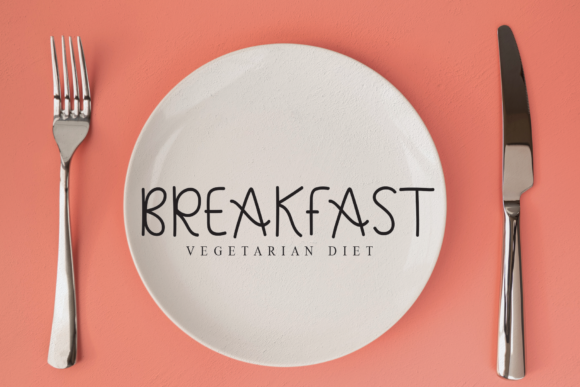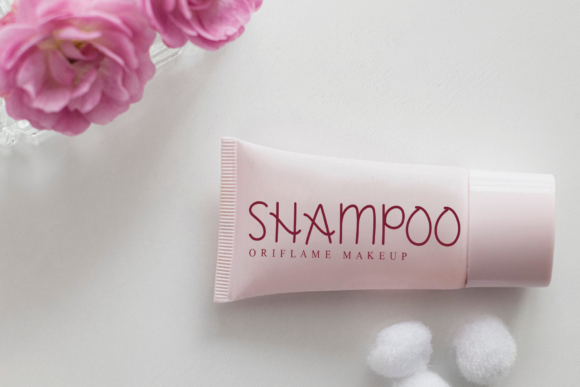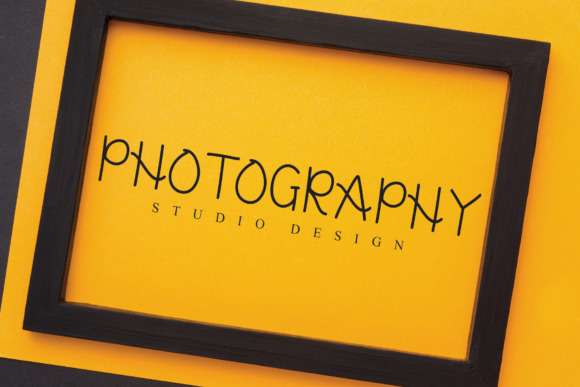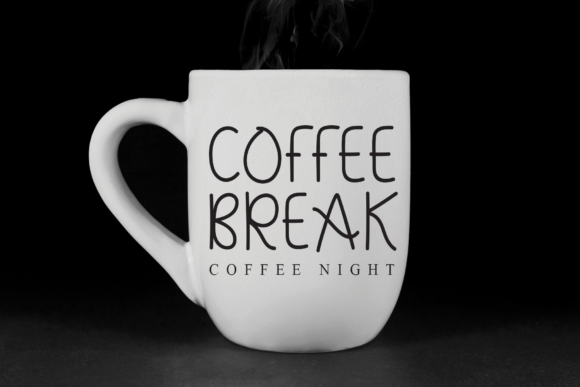
The Magic of Handwritten Fonts: Unleashing Your Creativity with Alive Font
There’s something special about the moment when an idea strikes, and you know you have to bring it to life. It’s that rush of excitement, the spark of creativity, and the urge to express yourself in the most unique way possible. For designers, this moment is what makes it all worthwhile – and with the right tools, the possibilities are endless.
Enter the Alive Font, a beautiful handwritten font that’s perfect for adding a touch of personality to your designs. Whether you’re working on a branding project, creating a social media campaign, or simply experimenting with new ideas, Alive Font is the perfect companion to help you bring your vision to life.
With its versatility and unique charm, Alive Font is a valuable addition to any designer’s toolkit. So why not get creative and see what amazing designs you can come up with using this amazing font?
Key Features of Alive Font
- Font Family: Alive Font is a sans-serif font family, available in several weights and styles, including Thin, Light, Regular, Medium, Bold, and Black.
- Unique Characteristics: Alive Font features a unique blend of modern and minimalist design elements, including clean lines, rounded edges, and a subtle texture that gives it a humanistic feel.
Alive Font Review
As a designer, I was excited to dive into the Alive Font and see what it had to offer. Here are my thoughts:
- Dynamic Expressiveness: The Alive Font does an excellent job of conveying a sense of movement and energy through its unique, flowing letterforms.
- Customization Options: The font offers a range of weights and styles, allowing designers to experiment with different looks and feels.
- Legibility: Despite its dynamic nature, the font remains highly legible, even at smaller sizes.
- Over-Use: The Alive Font’s distinctive style can quickly become overwhelming if used too extensively. Designers should use it sparingly to avoid visual fatigue.
- Typographic Challenges: The font’s flowing lines can make it difficult to pair with certain typefaces, requiring careful selection and arrangement.
Overall, I find the Alive Font to be a versatile and expressive choice for designers looking to add some visual interest to their work. While it may present some challenges, its unique benefits make it a valuable addition to any design toolkit.
Tips for Getting the Most Out of Alive Font
Experiment with different font sizes and styles to create visual interest. Combine Alive Font with other design elements to create a unique look. Use Alive Font in headings and titles to draw attention and emphasize important information.
Common Use Cases for Alive Font
Alive Font is ideal for creating dynamic and engaging titles, headings, and captions. It’s perfect for use in social media graphics, presentations, and marketing materials. The font’s energetic and playful feel makes it suitable for designs targeting a younger audience.